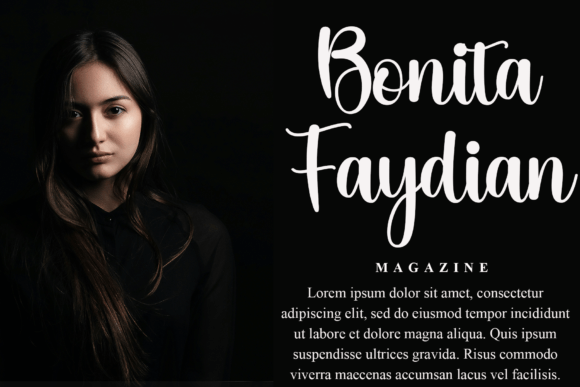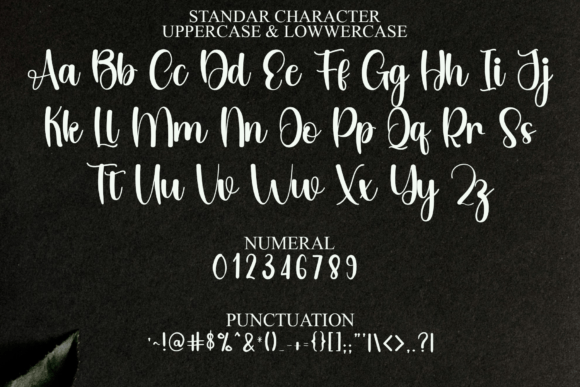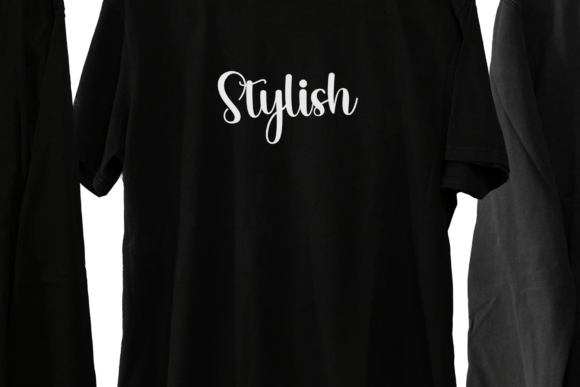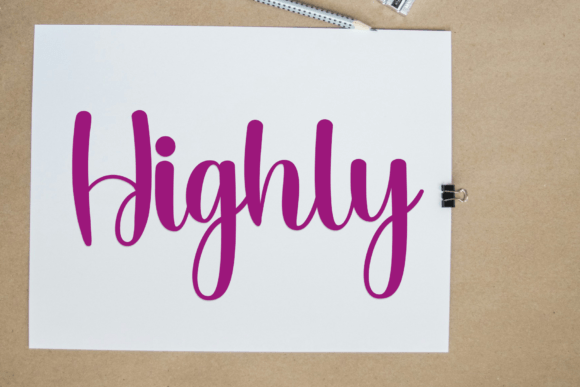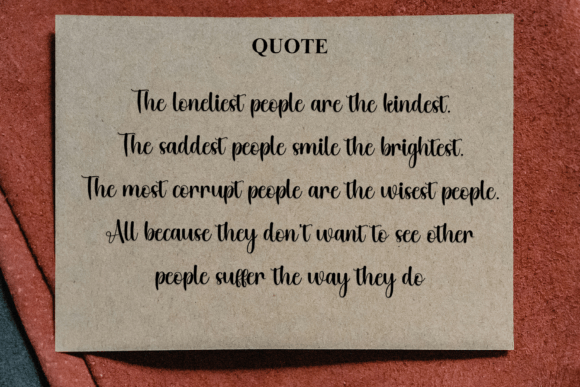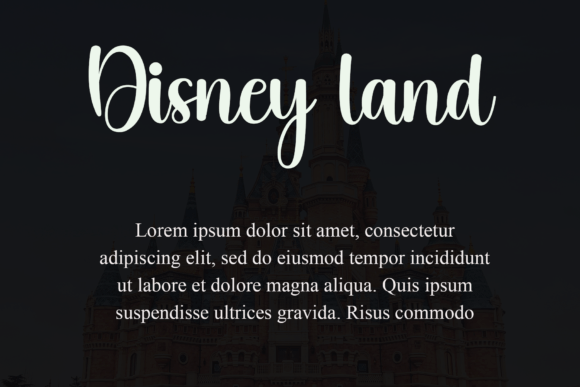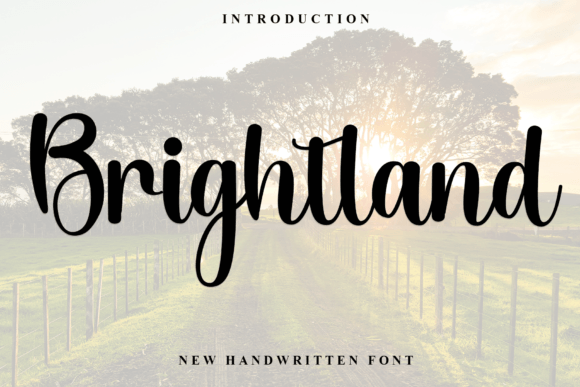
Introducing Brightland Font: Elevate Your Designs with Elegance and Sophistication
In the world of typography, a font can make or break a design. For designers and crafters seeking to add a touch of elegance and sophistication to their work, Brightland Font is an exceptional choice. This beautiful, refined handwritten font is perfect for creating stunning logos, branding materials, invitations, stationery, wedding designs, social media posts, and more.
What Makes Brightland Font Stand Out?
Brightland Font boasts a classy, elegant, and modern look that sets it apart from other fonts. Its refined handwritten style exudes a sense of luxury and sophistication, making it ideal for designs that require a high-end feel. Whether you’re working on a wedding invitation, a brand logo, or a social media post, Brightland Font is sure to impress.
One of the key benefits of Brightland Font is its versatility. Its elegant and modern design makes it suitable for a wide range of applications, including:
- Logos and branding: Create a lasting impression with a custom logo that exudes elegance and sophistication.
- Invitations and stationery: Add a touch of luxury to your invitations, business cards, and letterheads.
- Wedding designs: Make your wedding stationery, invitations, and decorations truly unforgettable with Brightland Font.
- Social media posts: Elevate your social media game with beautifully designed posts that showcase your brand’s personality.
Brightland Font is PUA (Private Use Area) encoded, which means you can access all the amazing glyphs and ligatures with ease. This feature makes it simple to customize your designs and add unique touches that set your work apart.
Brightland Font offers numerous benefits for designers and crafters, including:
- Ease of use: With PUA encoding, you can easily access and use the font’s features without requiring extensive technical knowledge.
- Customization: The font’s glyphs and ligatures allow you to add a personal touch to your designs, making them truly unique.
- Time-saving: Brightland Font’s versatility and ease of use save you time and effort, allowing you to focus on other creative aspects of your project.
- High-quality designs: With Brightland Font, you can create stunning, high-quality designs that reflect your brand’s personality and style.
Tips for Using Brightland Font
To get the most out of Brightland Font, consider the following tips:
- Experiment with sizes and colors: Play around with different font sizes and colors to find the perfect combination for your design.
- Mix and match: Combine Brightland Font with other fonts to create a unique and visually appealing design.
- Pay attention to spacing: Make sure to adjust the spacing between letters and lines to ensure your design looks balanced and elegant.
Brightland Font is a beautiful, refined handwritten font that offers elegance, sophistication, and versatility. With its PUA encoding, ease of use, and high-quality design, it’s an excellent choice for designers and crafters seeking to elevate their work. Whether you’re creating logos, branding materials, invitations, or social media posts, Brightland Font is sure to help you achieve your design goals.